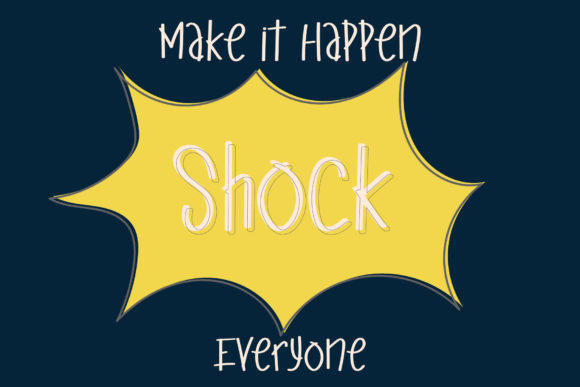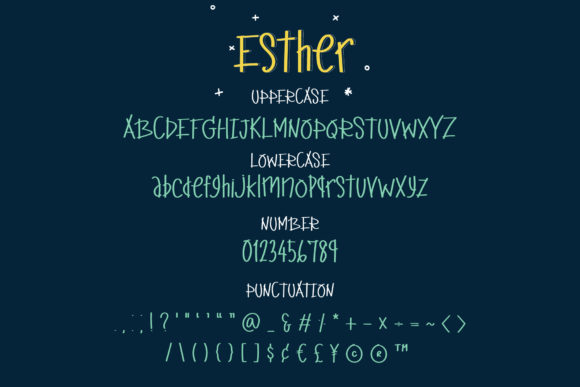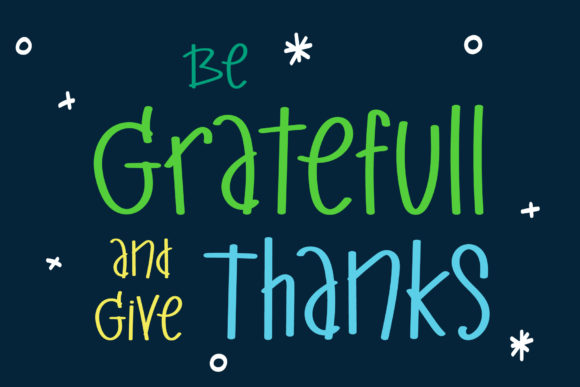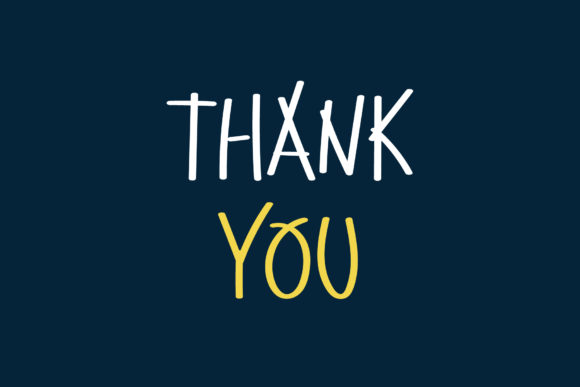
Introducing Esther Font: The Perfect Blend of Clean and Quirky
Are you on the hunt for a font that adds a touch of personality to your designs without compromising on cleanliness and readability? Look no further than Esther Font! This fun, handwritten font is making waves in the design community for its unique blend of simplicity and quirkiness, making it an ideal choice for a wide range of projects.
What Makes Esther Font Stand Out?
Esther Font is not just another font; it’s a statement piece. Its clean lines and smooth curves give it a contemporary feel that’s hard to ignore. But what truly sets it apart is its quirky edge. A little bit playful, a little bit whimsical, Esther Font injects a dose of personality into any design it’s part of. Whether you’re crafting a logo, creating branding materials, designing social media graphics, or working on a crafty DIY project, Esther Font brings a level of charm and character that’s sure to captivate your audience.
For designers, finding the right font can often be a challenge. You need something that will elevate your design, make it memorable, and communicate the right tone. Esther Font checks all these boxes and more. Its versatility means it can be used in a variety of contexts, from sleek and modern to more playful and informal designs. For crafters, especially those involved in DIY projects, Esther Font offers an easy way to add a professional touch to handmade goods, crafts, and artisanal products. Whether you’re making custom jewelry, candles, or any other craft, Esther Font can help you create labels, packaging, or promotional materials that stand out.
Key Features of Esther Font
- Clean and Readable: Despite its quirky nature, Esther Font remains clean and highly readable, making it suitable for both digital and print applications.
- Handwritten Charm: The font’s handwritten origins give it a personal and approachable feel, perfect for brands looking to connect with their audience on a more personal level.
- Versatile: From logos and branding to social media posts and craft projects, Esther Font’s versatility knows no bounds.
- Quirky yet Professional: It strikes the perfect balance between being fun and professional, a hard combination to find in fonts.
Using Esther Font in Your Projects
So, how can you incorporate Esther Font into your projects? Here are a few ideas to get you started:
- Logos and Branding: Use Esther Font to create a memorable logo or to develop a consistent brand voice across all your marketing materials.
- Social Media Graphics: Add a touch of personality to your social media posts, stories, and banners with Esther Font.
- Crafty DIY Projects: From handmade cards to personalized gifts, Esther Font can add a professional and charming touch to your creations.
- Web Design: Consider using Esther Font for headings or even body text on your website to give it a unique and inviting feel.
Esther Font is more than just a font; it’s a design companion that can help you create memorable, engaging, and charming projects. Its unique blend of cleanliness and quirkiness makes it a versatile tool for designers and crafters alike. Whether you’re looking to elevate your brand, create captivating social media content, or add a professional touch to your DIY projects, Esther Font is an excellent choice. So why not give Esther Font a try and see how it can transform your designs?